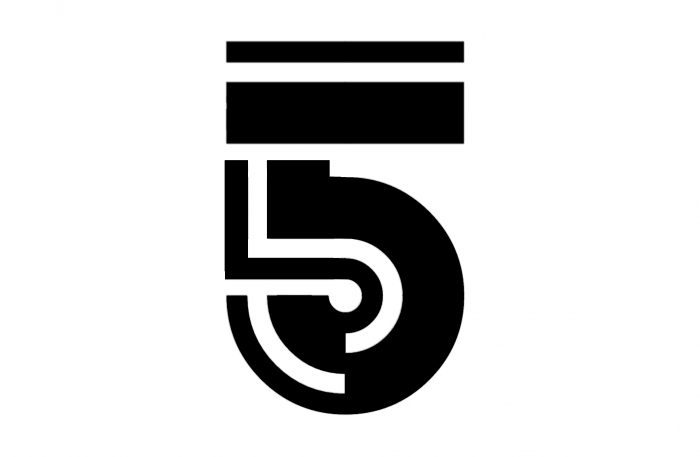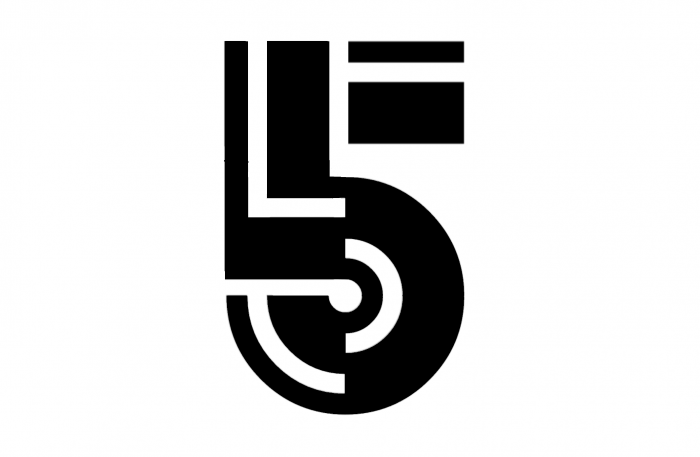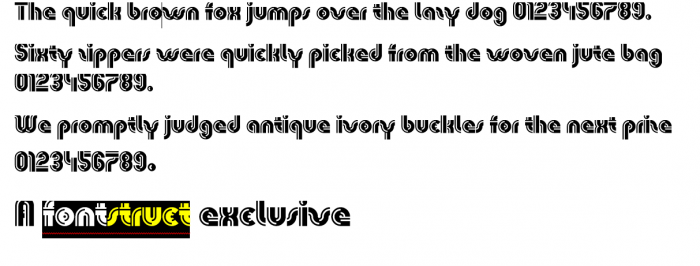
¡Hola, compa! Long time no see you here! Congrats on this new TP! Nice an eyecatching font, I like it a lot. What do you think about this alternative 5?
Btw, I'm thinking on something about the "z"...
@Elmoyenique. Thanks, yeah this is pretty much work in "indefinite" progress :) Was working on different kind of font but it's harder to make so made it like this for the moment. Will try to improve individual letters. Thanks for the 5 suggestion.
Very nice addition to the Bauhaus catalog. I just wonder, what's up with the mix-case style? Some words look kind of cool in this mix of upper & lower case letters. But many others simply don't work very well. Are there plans to complete the uppercase letterset and split the character mix-case alternates into a Private Use Area to make the stylish mixed-case function slight more intuitive and 'optional' rather than by default?
Anyway, nice one nonetheless!
Thanks. Nothing like that, I am just still working on it 😅
Oh blast.. whut else?! 😋
Nice work, the inside-outside switch ove the centre line is very effective!
This is the one cool font that caught my eye. I rally like it. Probably one my favourite fonts I've seen.